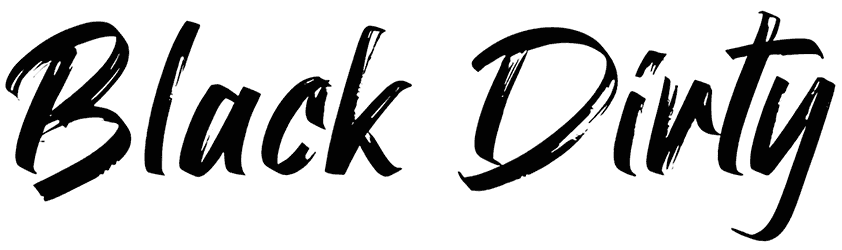
Black Dirty Font
Back Dirty is an A-Z character script font that features a striking style and diversifies your illustrated content. This brush font has an inky form and makes your flyers, album covers, stickers, graffiti, or other designs look more metropolitan.